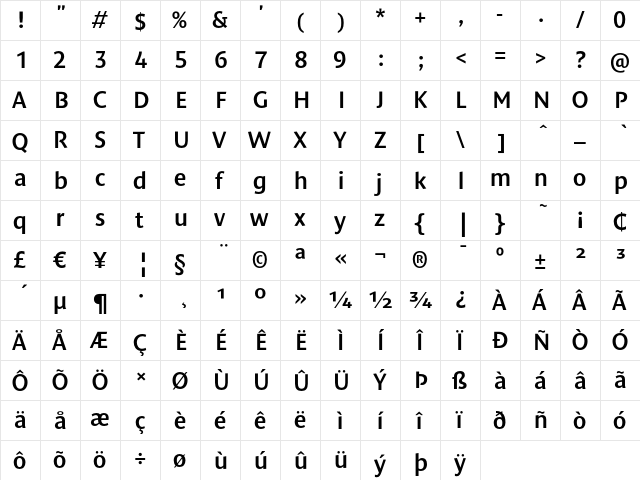
DendaNew Regular
Design Context for DendaNew Typeface
DendaNew takes a measured approach to typography — its balanced proportions and neutral character make it a reliable workhorse for both digital and print work.
Pro Tip: Pair DendaNew with a font of contrasting weight or personality to build a more expressive typographic hierarchy.